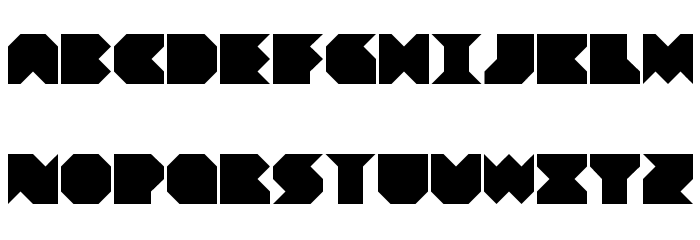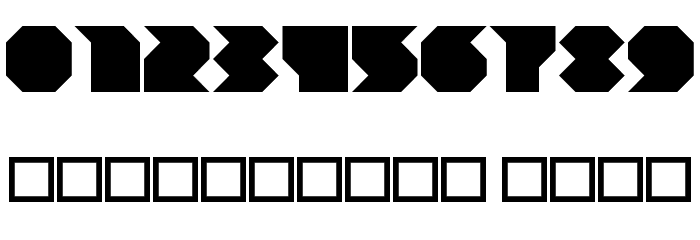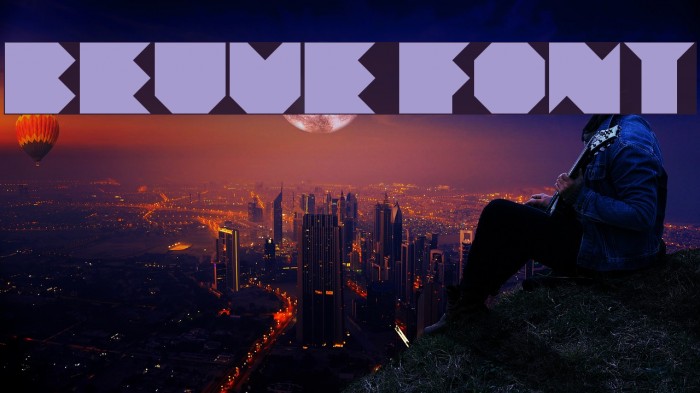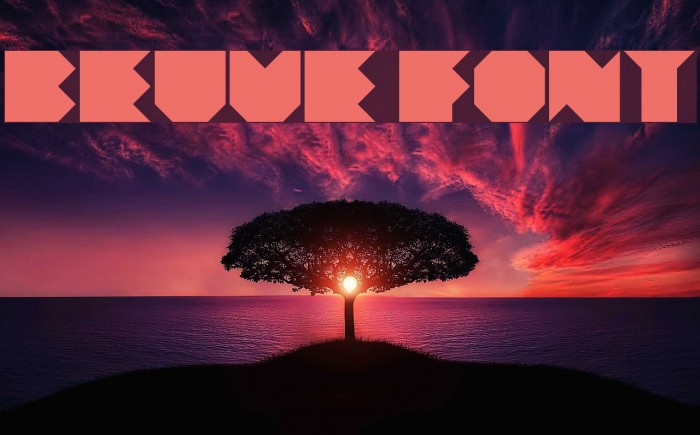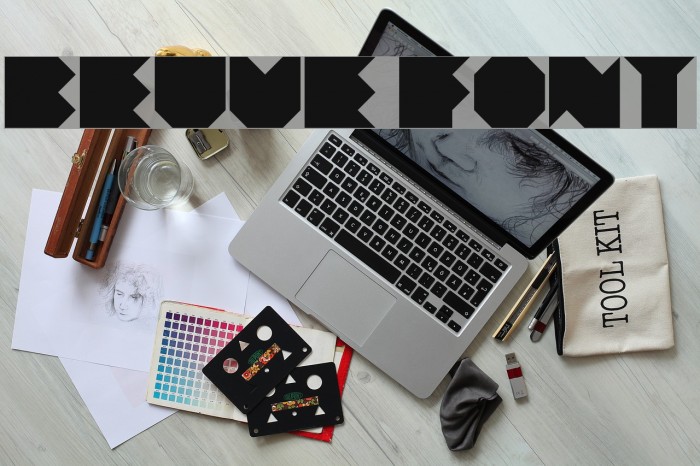
Beuve Font
This font features a bold and geometric design, characterized by its sharp angles and block-like structure. Each character is crafted with a consistent width, creating a uniform and cohesive appearance. The uppercase and lowercase letters maintain a similar style, emphasizing the font's modern and futuristic aesthetic. The numbers and special characters are designed to match the overall theme, ensuring a seamless integration across various uses. The font's unique style makes it stand out, ideal for projects that require a strong visual impact.
A bold, geometric font with sharp angles and a modern aesthetic.
- Proposed Projects: Ideal for branding, posters, headlines, and any project requiring a strong, modern visual impact.